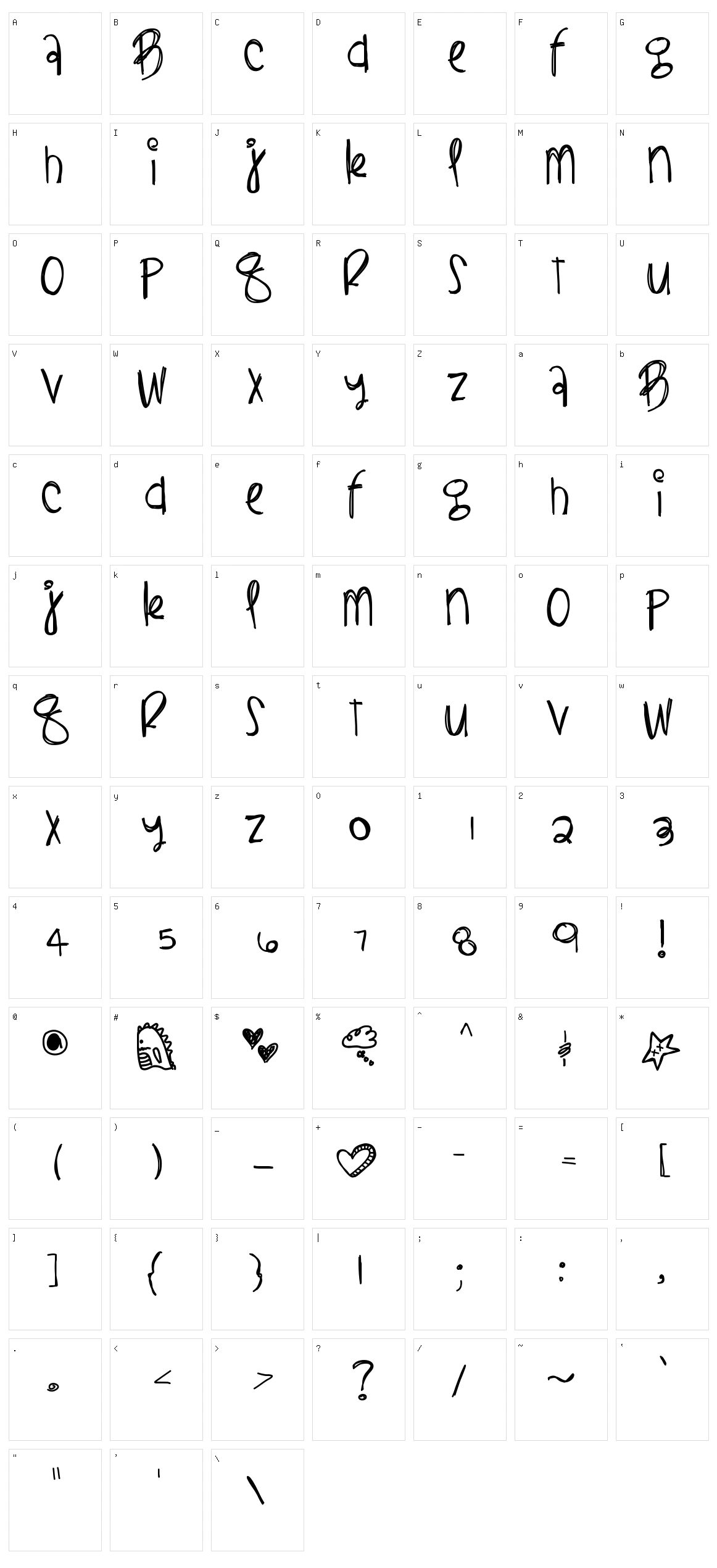
The free font Black Lightning is carefully designed by Des Gomez, showcasing a thoughtful balance of creativity and usability and falls under the Cartoon font style. When you download the ZIP file, it contains only 18.23 KB of font files, making it lightweight and quick to download. Please review the license details below to understand permitted usage and distribution rights. If license information is not available, we recommend using this font for personal projects only or contacting the author directly for commercial usage permissions.